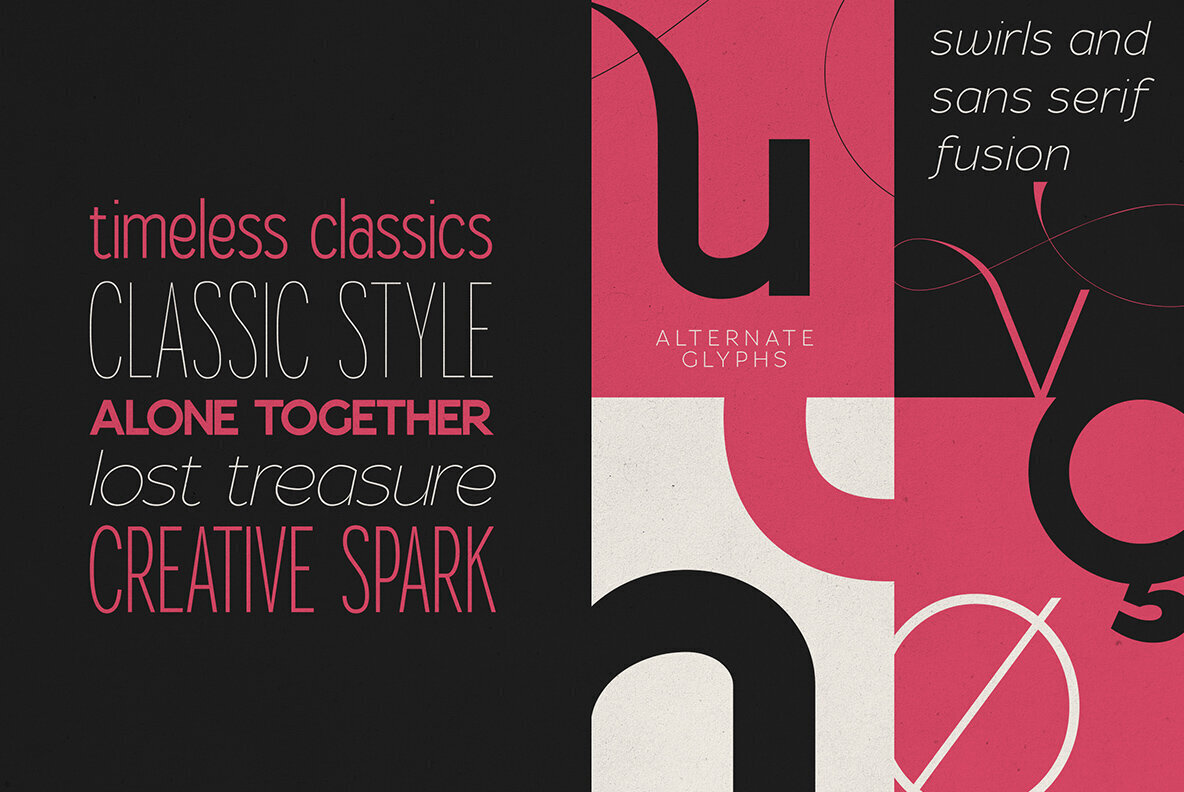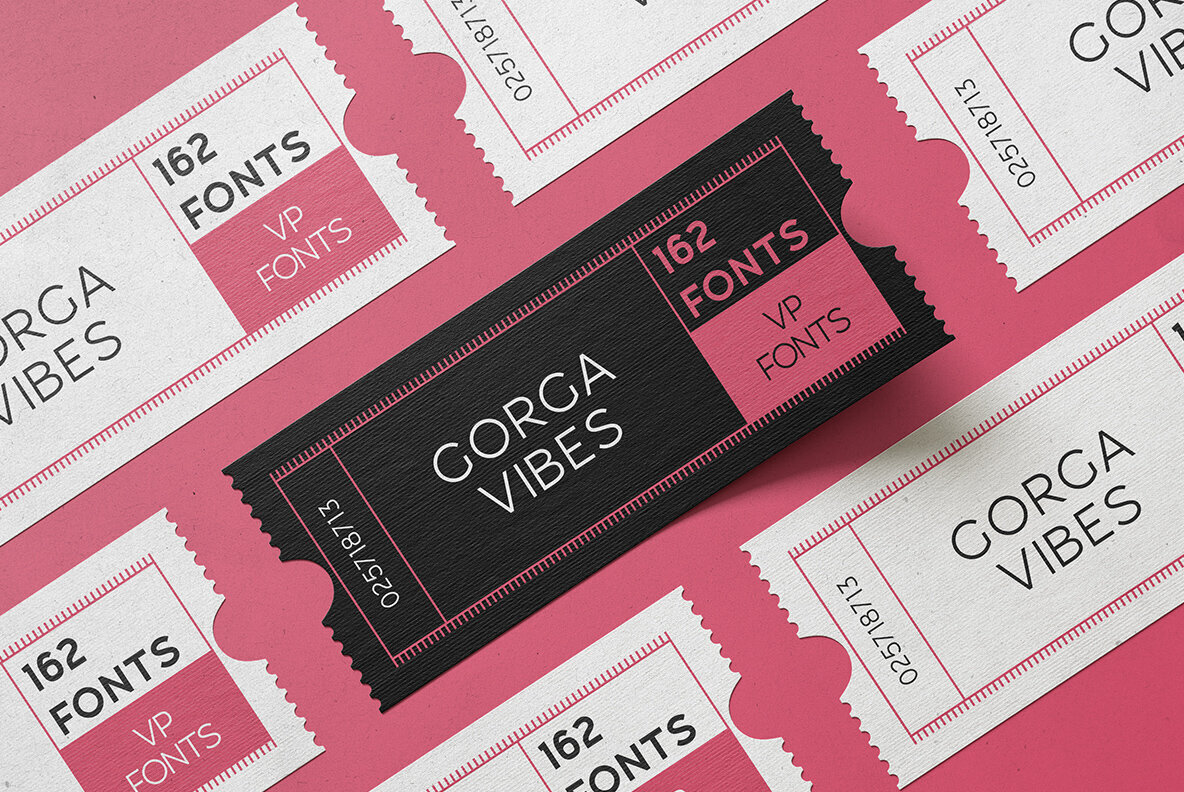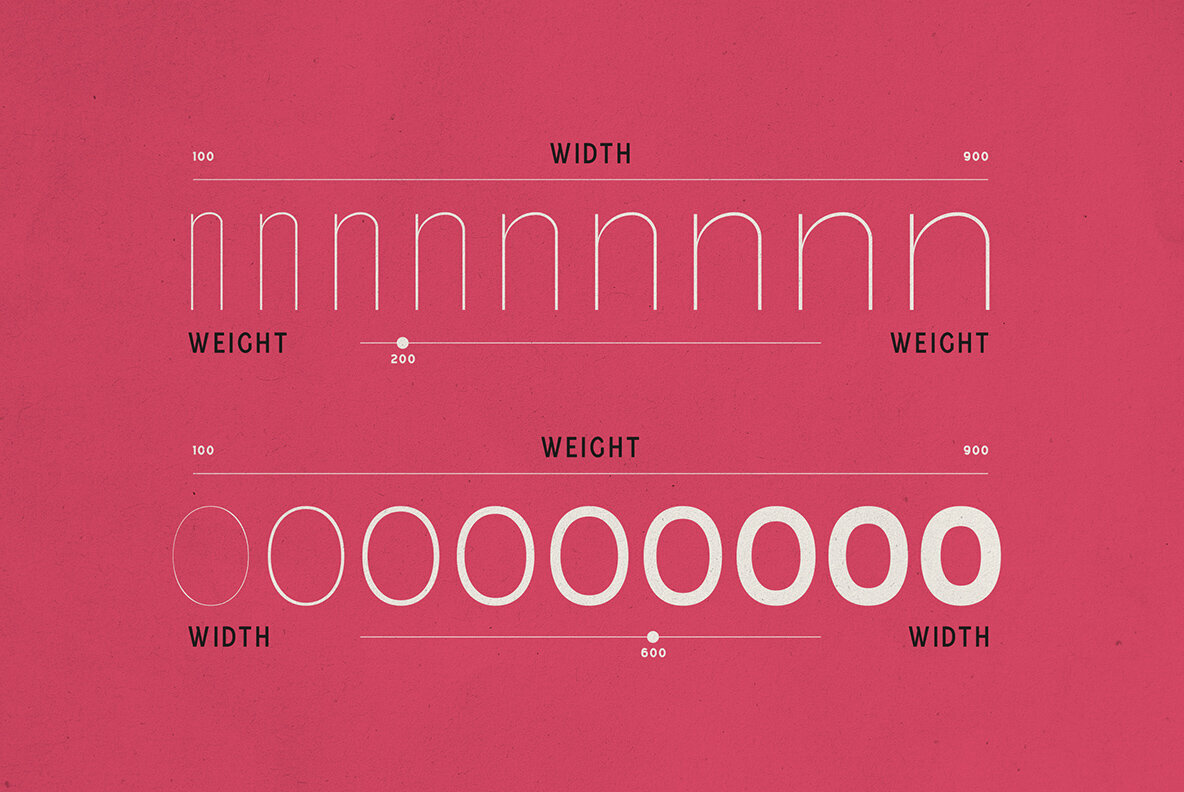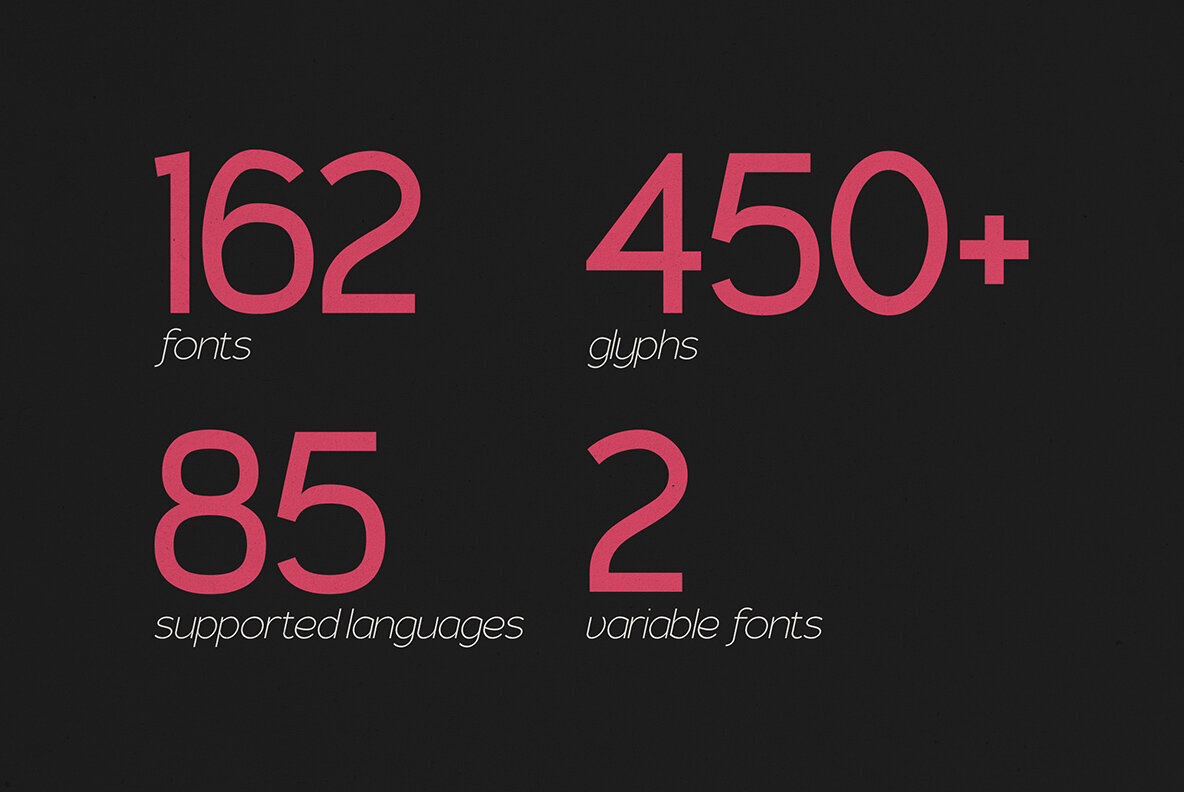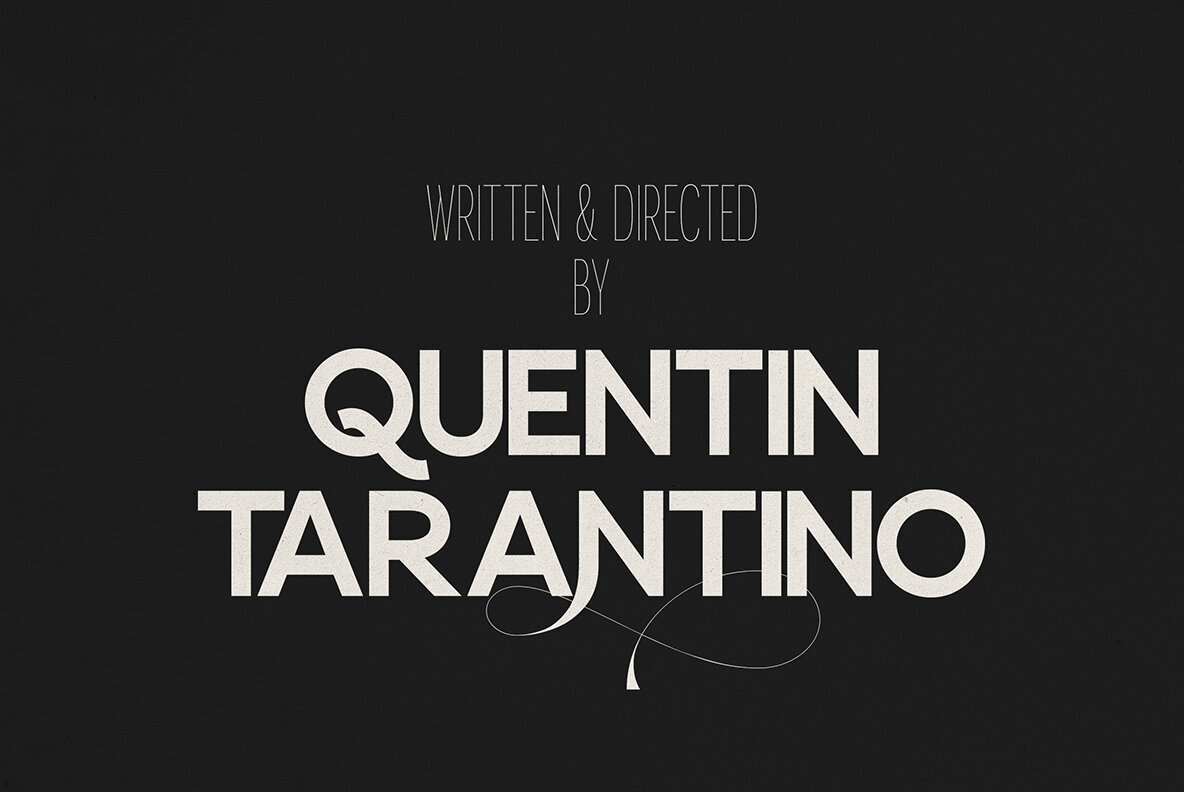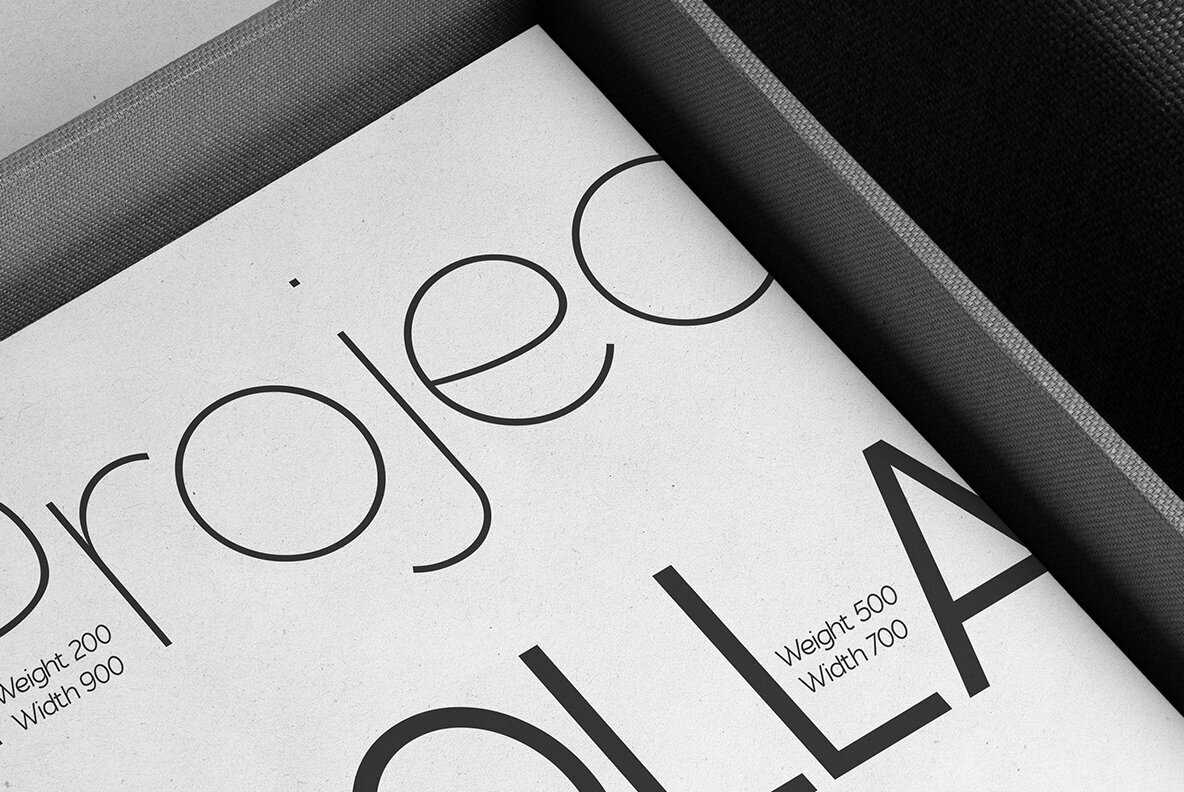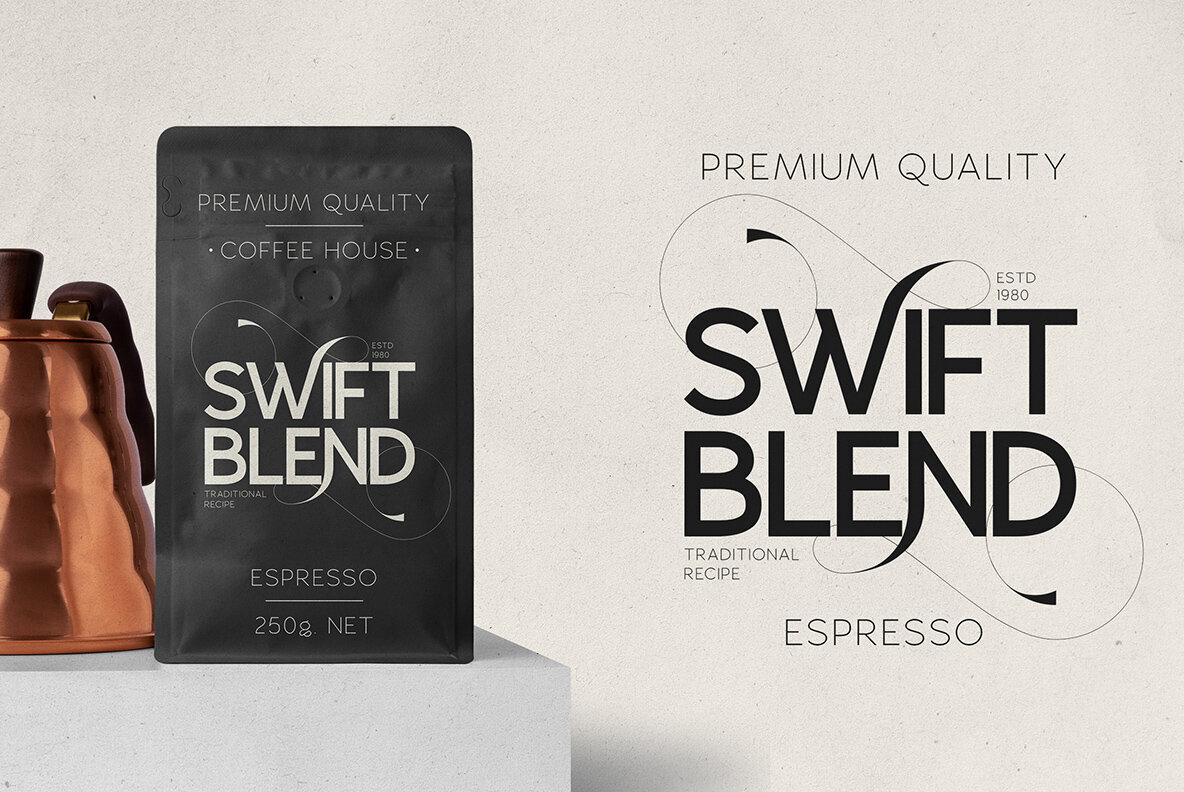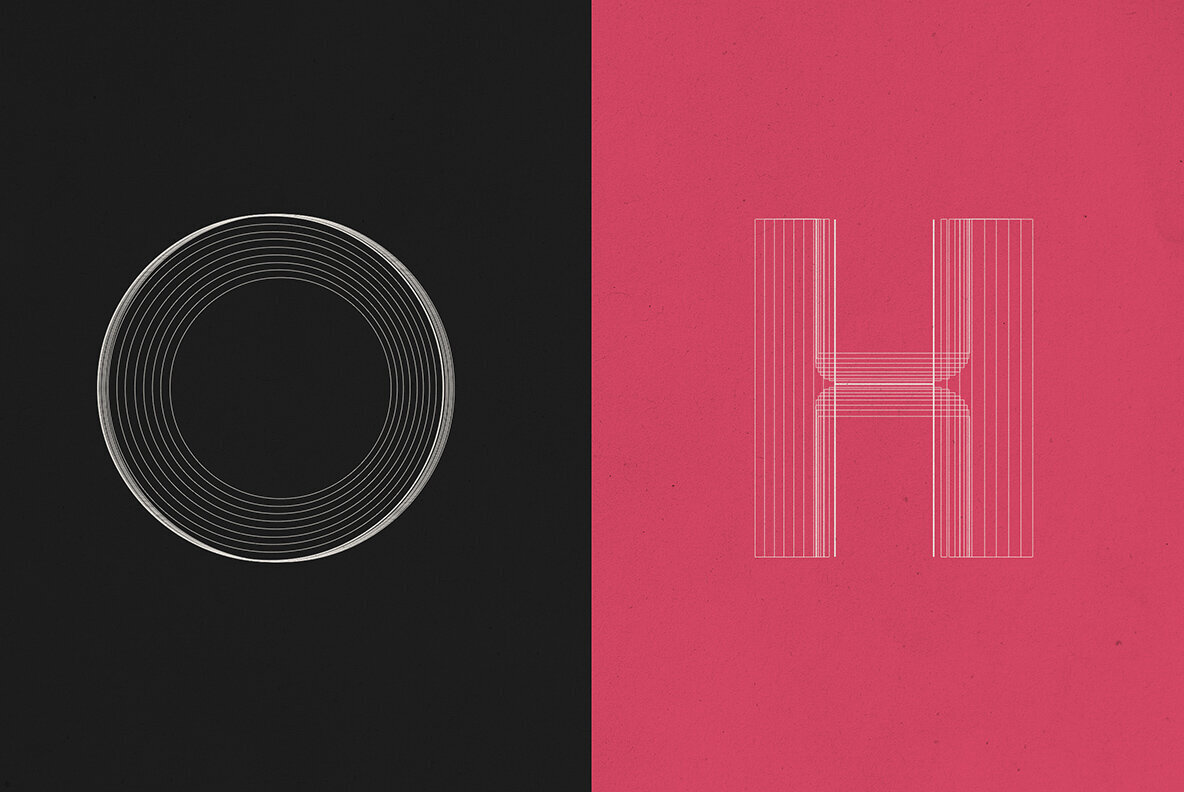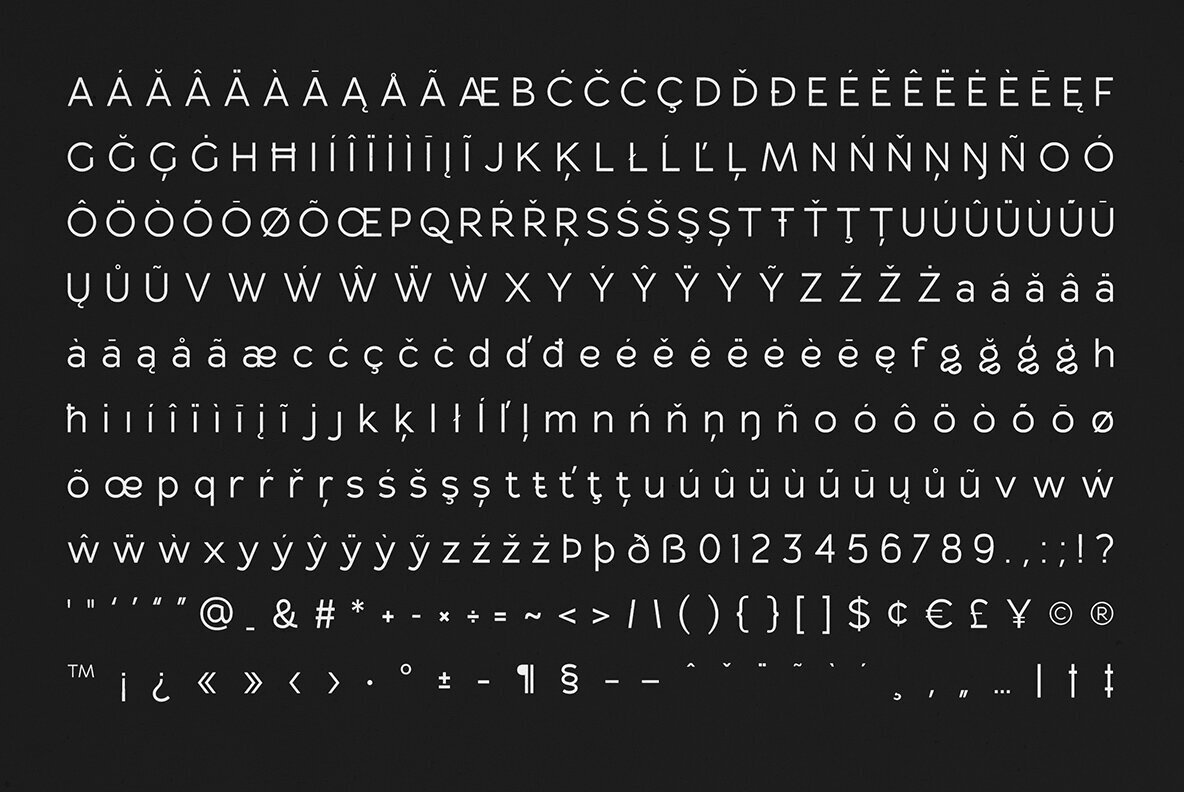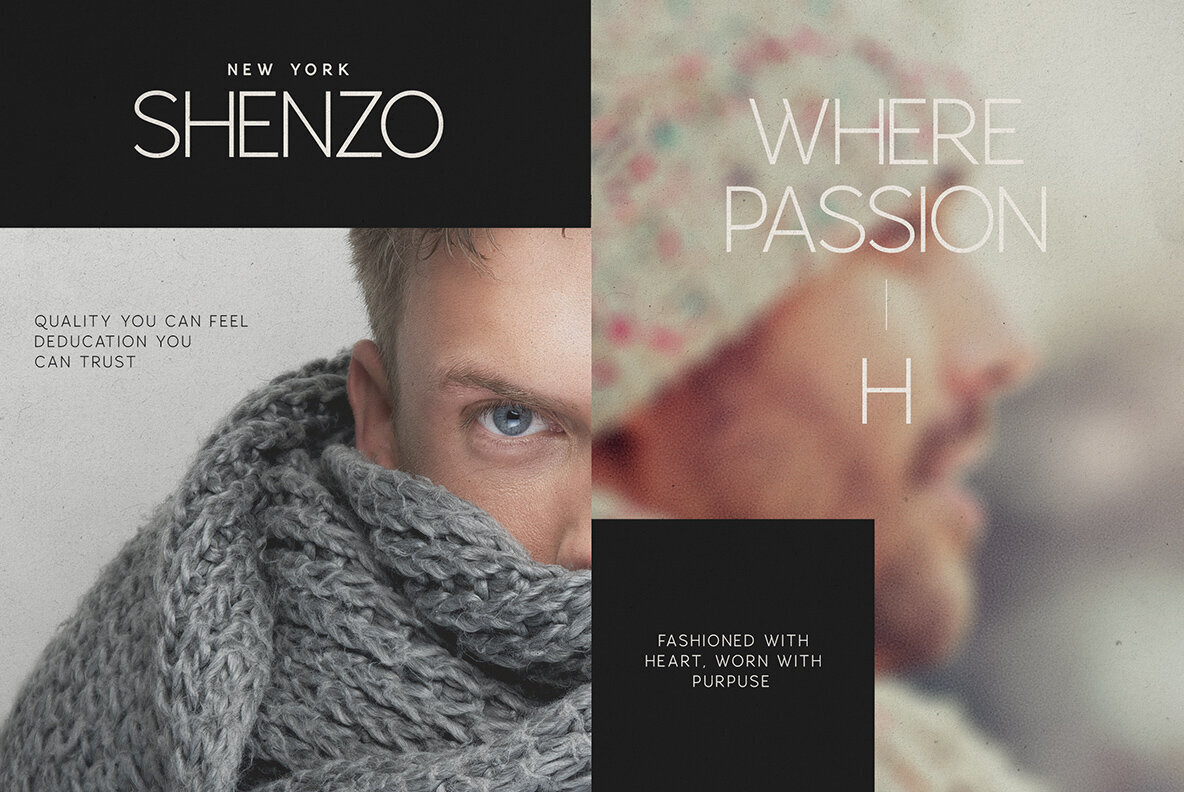
Gorga Sans Font
Gorga Sans is a powerhouse variable sans serif font family featuring 162 meticulously crafted styles, from Thin Ultra Condensed to Black Ultra Expanded, each paired with elegant italic counterparts. Designed for maximum flexibility, it’s the ultimate type system for designers who demand both refined aesthetics and technical range. With two variable fonts (Regular & Italic), Gorga Sans allows you to fine-tune weight and width on a sliding scale — making it perfect for responsive branding, adaptive interfaces, editorial designs, and expressive typography. Font Features: Perfect For: Language Support : Afrikaans, Albanian, Asu, Basque, Bemba, Bena, Breton, Chiga, Colognian, Cornish, Czech, Danish, Dutch, Embu, English, Estonian, Faroese, Filipino, Finnish, French, Friulian, Galician, Ganda, German, Gusi,i Hungarian, Indonesian, Irish, Italian, Jola-Fonyi, Kabuverdianu, Kalenjin, Kamba, Kikuyu, Kinyarwanda, Latvian, Lithuanian, Lower Sorbian, Luo, Luxembourgish, Luyia, Machame, Makhuwa-Meetto, Makonde, Malagasy, Maltese, Manx, Meru, Morisyen, North Ndebele, Norwegian, Bokmål, Norwegian, Nynorsk, Nyankole, Oromo, Polish, Portuguese, Quechua, Romanian, Romansh, Rombo, Rundi, Rwa, Samburu, Sango, Sangu, Scottish, Gaelic, Sena, Shambala, Shona, Slovak, Soga, Somali, Spanish, Swahili, Swedish, Swiss, German, Taita, Teso, Turkish, Upper, Sorbian, Uzbek (Latin), Volapük, Vunjo, Walser, Welsh, Western Frisian, Zulu How to access alternate glyphs? To access alternate glyphs in Adobe InDesign or Illustrator, choose Window Type & Tables Glyphs In Photoshop, choose Window Glyphs. In the panel that opens, click the Show menu and choose Alternates for Selection. Double-click an alternate's thumbnail to swap them out. Mock ups and backgrounds used are not included! Thank you! Enjoy!